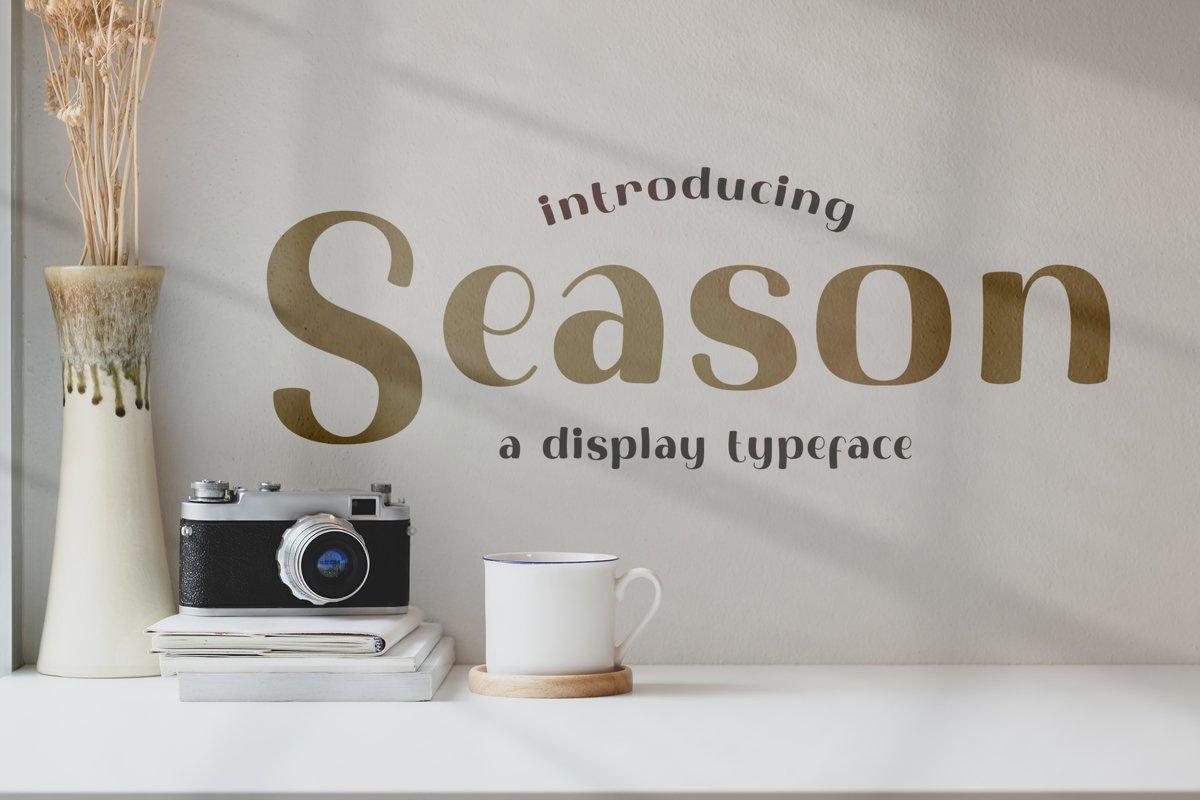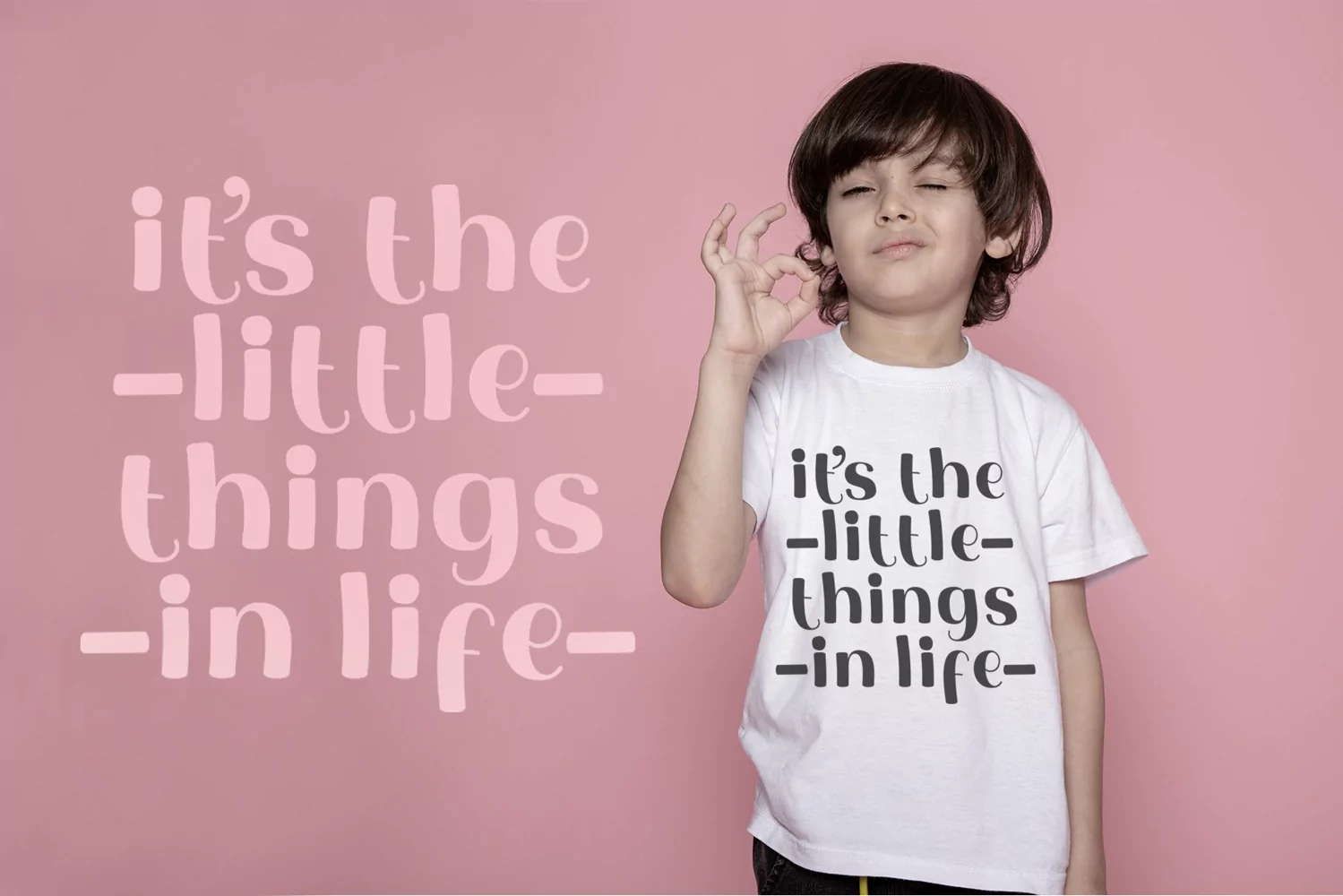
Season
Season is a display typeface. Perfect for display, quotes, price tag, mockup, crafting needs, logo, logotype, business card, logo, logotype, header, tittle, merchandise, branding, and many more.